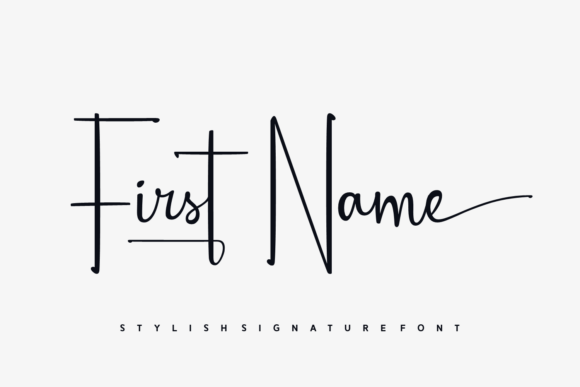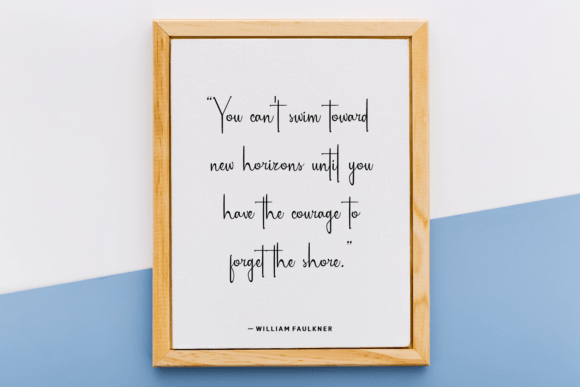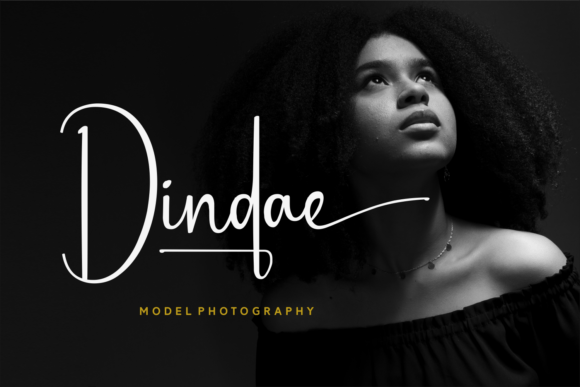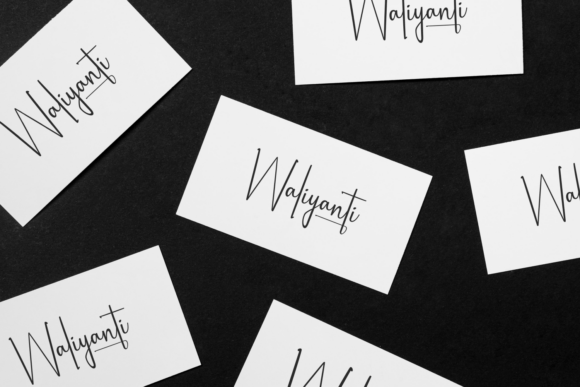
The Perfect Signature: Unlocking the Power of First Name Font
As a designer, have you ever stared at a blank canvas, wondering how to capture the essence of your client’s brand or personal style? The blank page can be intimidating, but the right font can spark inspiration and set the tone for a design that truly stands out. For me, it’s moments like these that I crave the perfect font to elevate my creations.
Enter First Name Font, a sleek and sophisticated signature font that embodies the essence of modernity and professionalism. Designed to add an artistic touch to any design, First Name Font is perfect for logos, personal branding, business cards, and high-end product designs. Its thin strokes and elegant flow make it an invaluable asset for designers looking to create memorable and timeless designs.
Key Features of First Name Font
- Font Family: First Name Font is a unique, hand-drawn font family designed for personal and creative projects.
- Size and Resolution: The font is designed to be used at medium to large sizes (14-72pt) and is optimized for 300 DPI resolution.
- Characteristics: The font features a playful, cursive style with a range of ligatures, swashes, and flourishes to add a touch of elegance and sophistication.
First Name Font Review
Overall, I think “First Name Font” is a solid choice for personal and informal projects, but it may not be the best fit for more formal or professional designs. Here’s my honest review:
- Unique and playful feel, perfect for adding a touch of personality to a design.
- Works well in digital formats, such as social media graphics and website headers.
- Easy to read and understand, even at small font sizes.
- May not be suitable for formal or professional designs, as it can come across as too casual.
- Lacks a strong, bold character, which can make it difficult to use in headlines or titles.
- Some letters may not be as aesthetically pleasing as others, which can affect the overall look of the font.
In conclusion, “First Name Font” is a fun and playful font that’s perfect for personal projects or informal designs. However, it may not be the best choice for more formal or professional projects. With a little creativity and experimentation, you can still get great results with this font, but it’s essential to be aware of its limitations.
Use the First Name Font to create personalized and unique designs.
Experiment with different font styles and sizes to achieve the desired effect.
Combine the First Name Font with other design elements to create visually appealing compositions.
Personalized invitations and event stationery
Customized business cards and marketing materials
Wedding and baby announcements